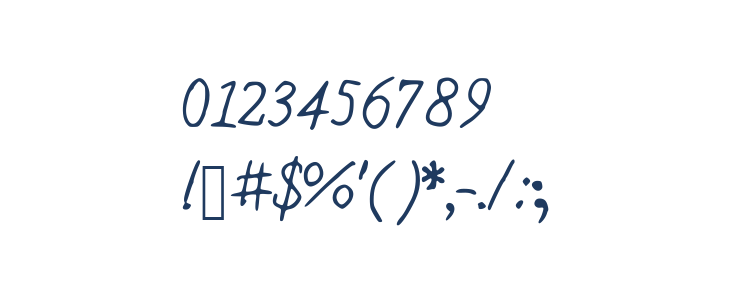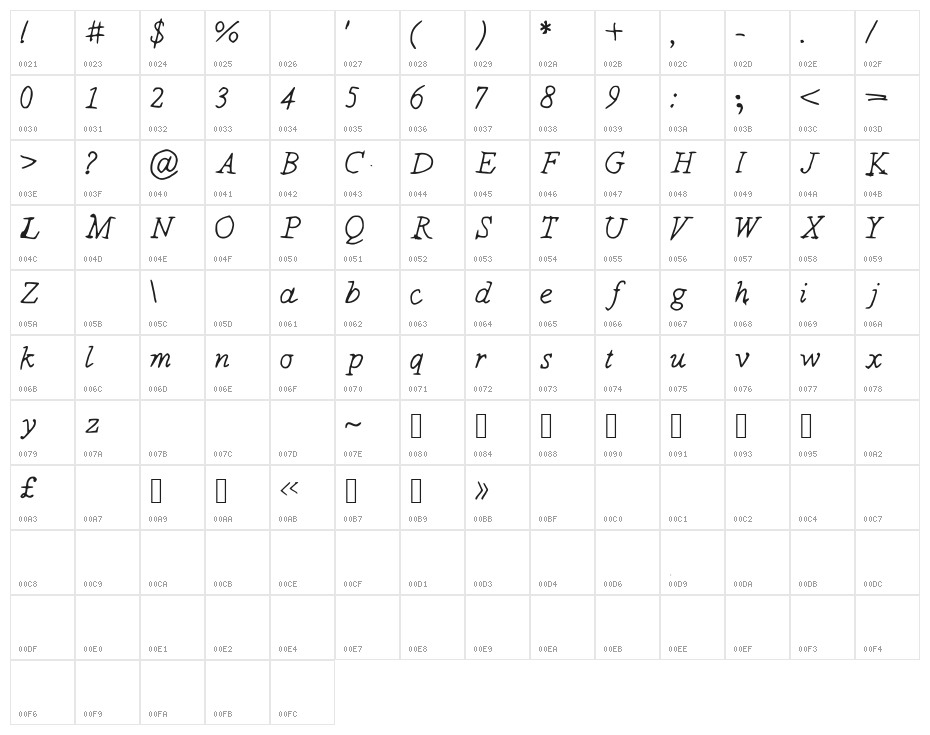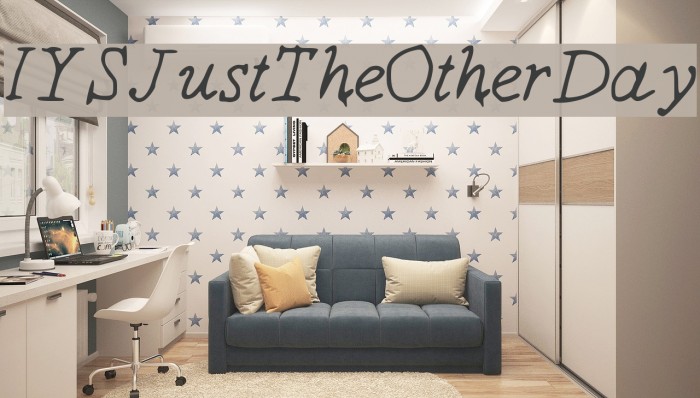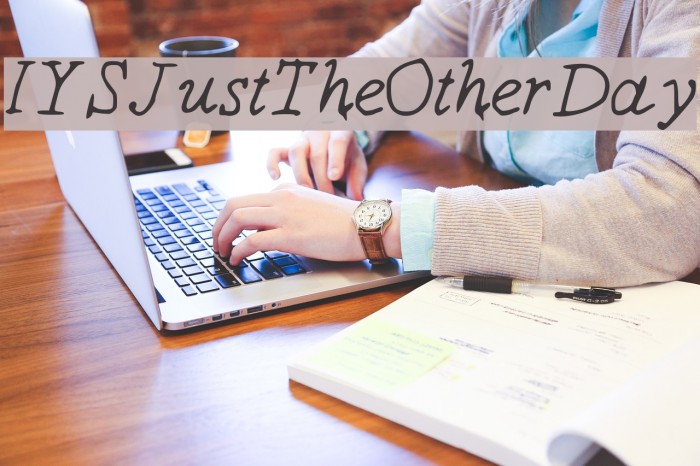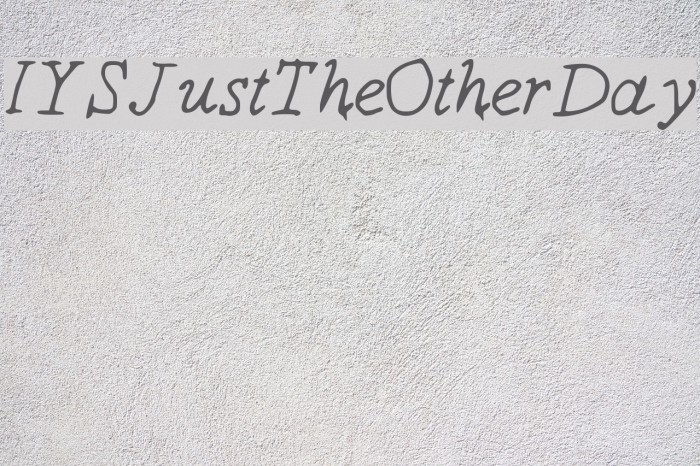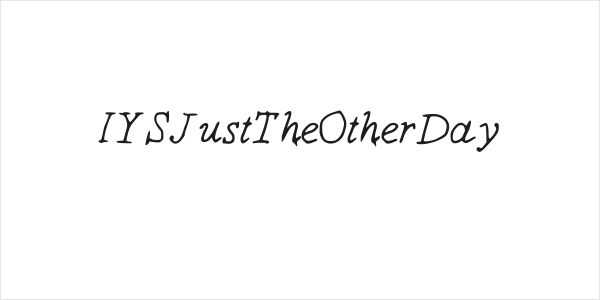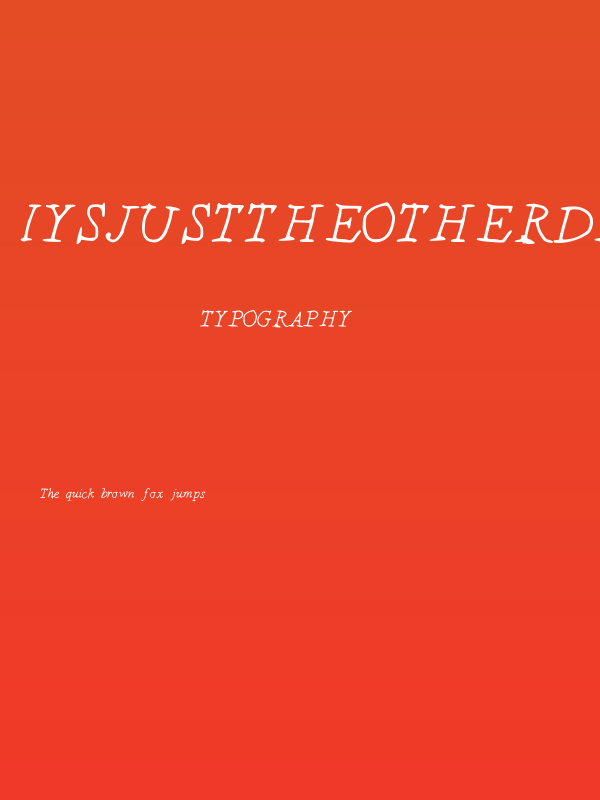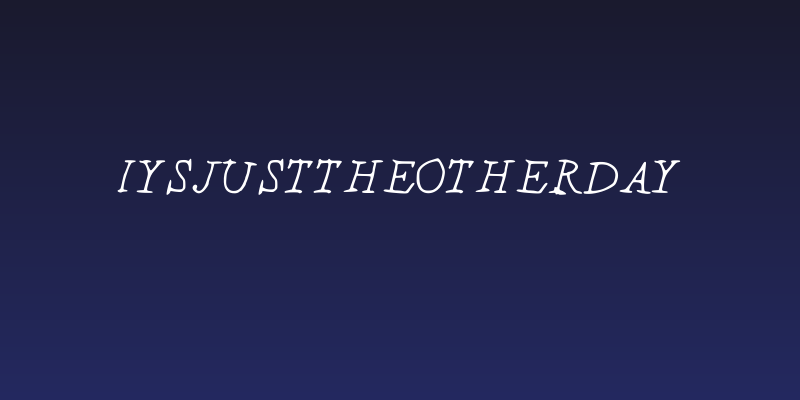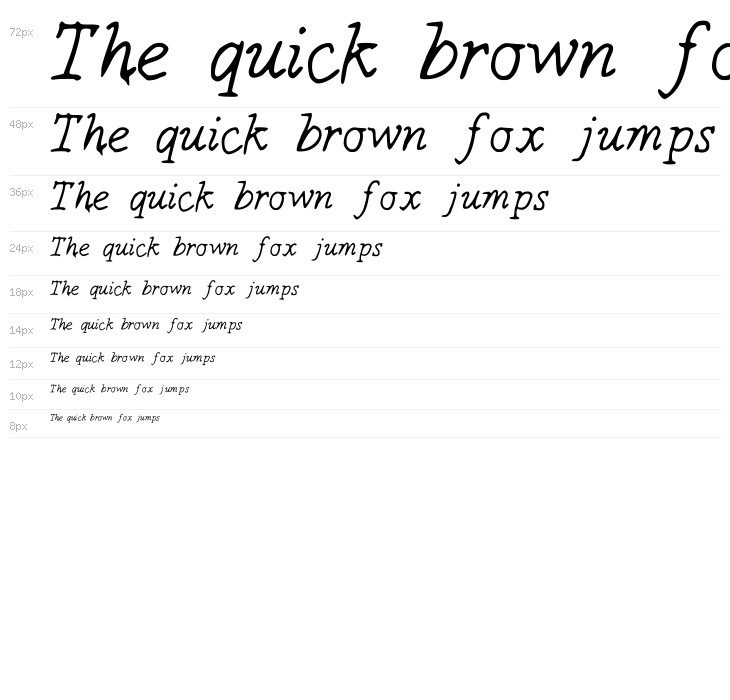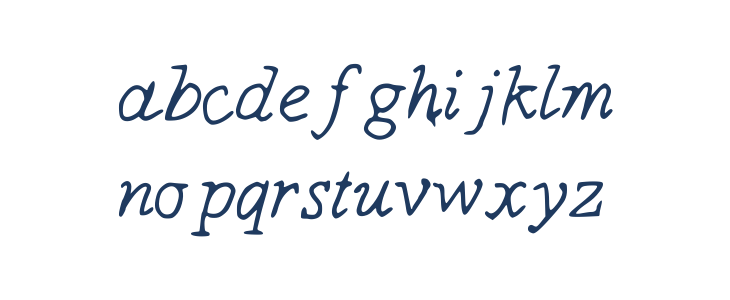
IYSJustTheOtherDay Font
IYSJustTheOtherDay Description
This font features a classic and elegant script style with a slight slant, giving it a handwritten appearance. The uppercase letters are distinct with a formal touch, while the lowercase letters flow smoothly, maintaining readability. The numerals are well-proportioned, complementing the overall aesthetic. Special characters are designed to match the script's fluidity, adding versatility. The font's design is suitable for conveying sophistication and grace, making it ideal for formal invitations, branding, and editorial use.
Overall StyleClassic
Use CaseHeadlines, Logos, Invitations
Proposed ProjectsIdeal for wedding invitations, elegant branding, editorial design, and formal stationery.